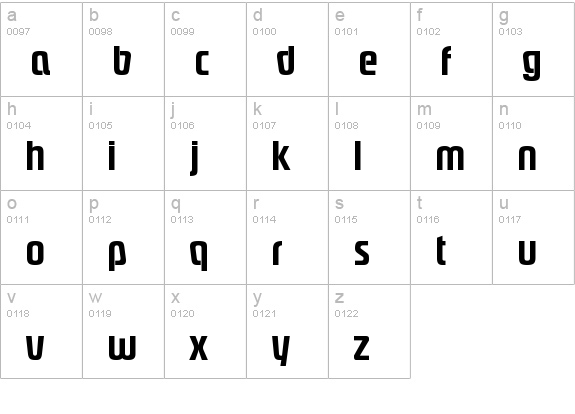
PloverExtrabold Regular is the standard, neutral variant in the PloverExtrabold typeface family \xE2\x80\x94 well suited to general body text, paragraphs, and standard typographic work.
PloverExtrabold Regular font is a bold and striking typeface that exudes confidence and modernity. With its strong and clean lines, this font is perfect for making a bold statement in your designs. The PloverExtrabold Regular font is versatile and can be used for a wide range of projects, from branding to editorial design. Best of all, this font is available for free download at FontsMarket.com. You can easily add this eye-catching font to your collection and start using it in your projects right away. Don't miss out on the opportunity to enhance your designs with the impactful PloverExtrabold Regular font, now freely available for download!